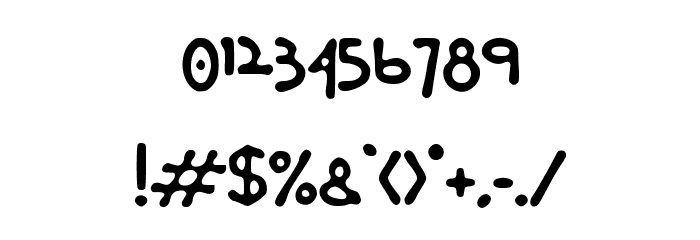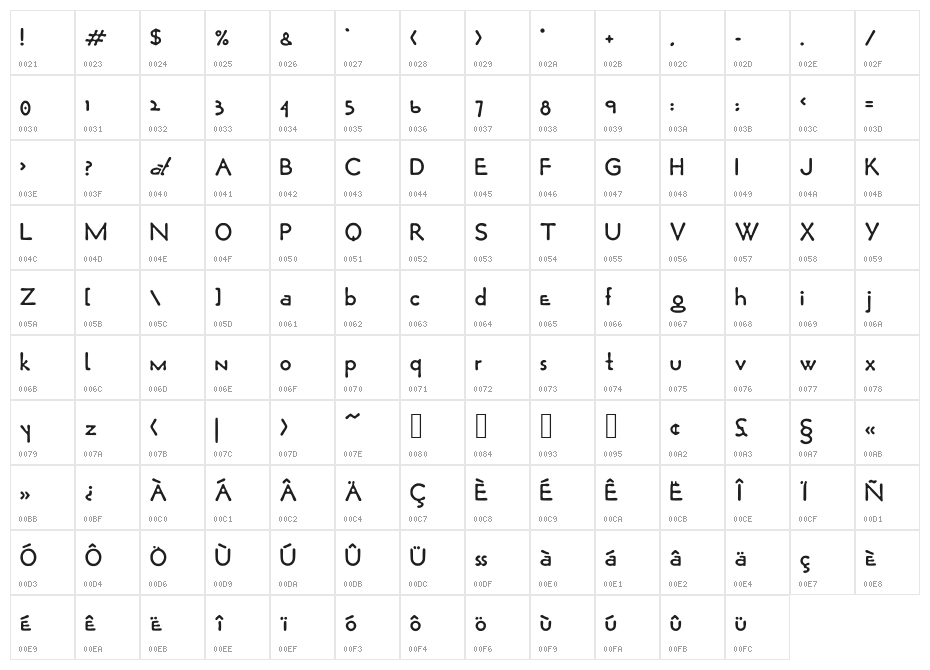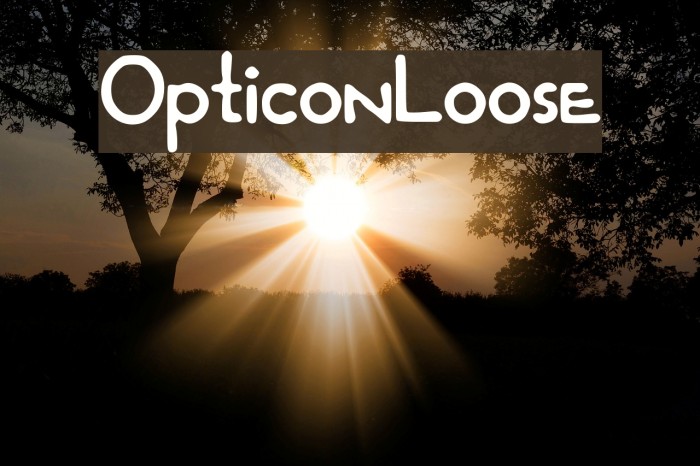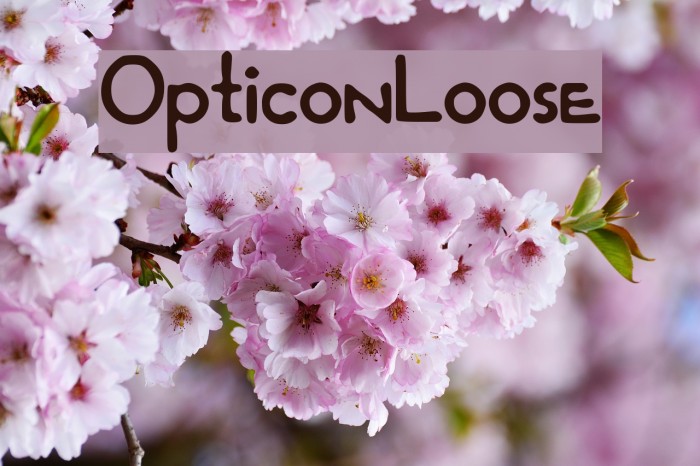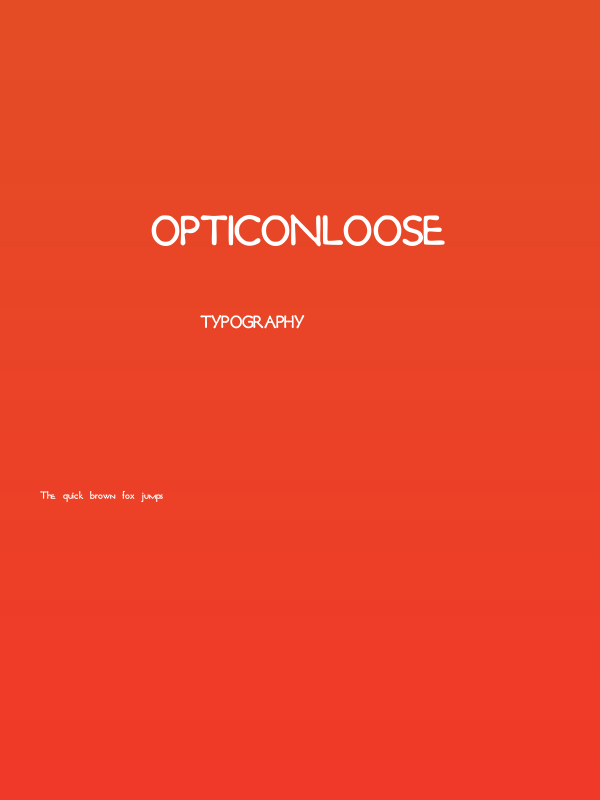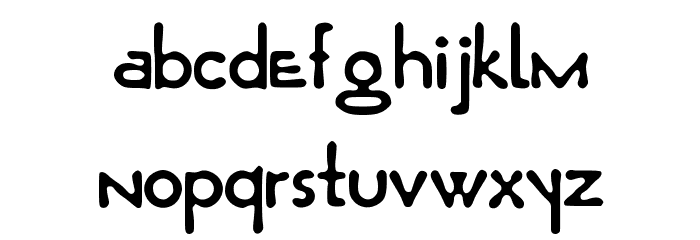
OpticonLoose Font
OpticonLoose Description
This font features a playful and rounded style with a hand-drawn appearance. The characters are bold and slightly irregular, giving it a whimsical and informal look. The uppercase and lowercase letters maintain a consistent style, with rounded edges and a slightly uneven baseline, adding to its charm. The numbers and special characters follow the same playful design, making it suitable for creative and casual projects. Its unique style makes it stand out, perfect for designs that require a touch of fun and personality.
| Proposed Projects | Ideal for children's books, playful branding, casual invitations, and creative posters. |